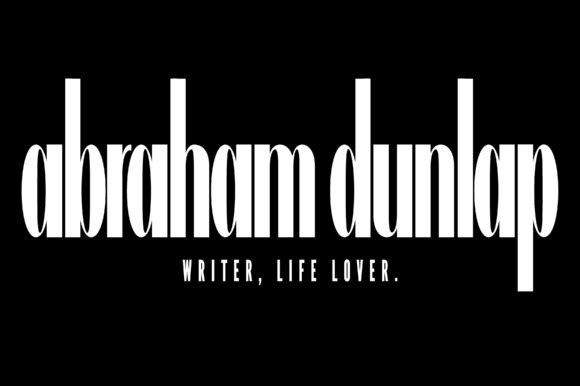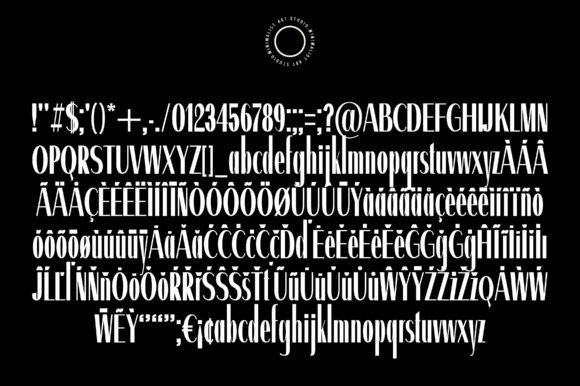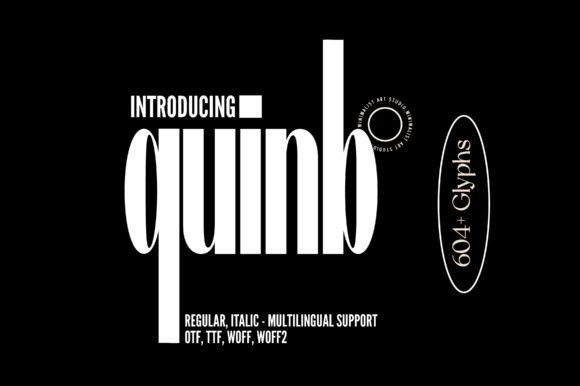
QUINB FONT
Quinb Font is the minimalist, condensed, and tall sans serif font that is guaranteed to take your design projects to the next level. This font is the epitome of simplicity, sophistication, and elegance, making it perfect for a wide range of design projects, from branding and advertising to web design and packaging.